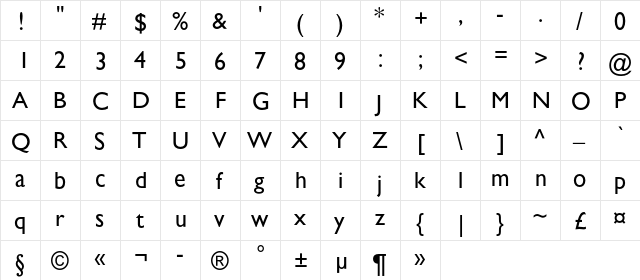
Gals Regular
Design Context for Gals Typeface
Gals offers clean, dependable letterforms without strong stylistic allegiance, making it a practical choice for designers who need flexibility.
Pro Tip: Use Gals in both headline and body roles to test its range before committing to a single application.